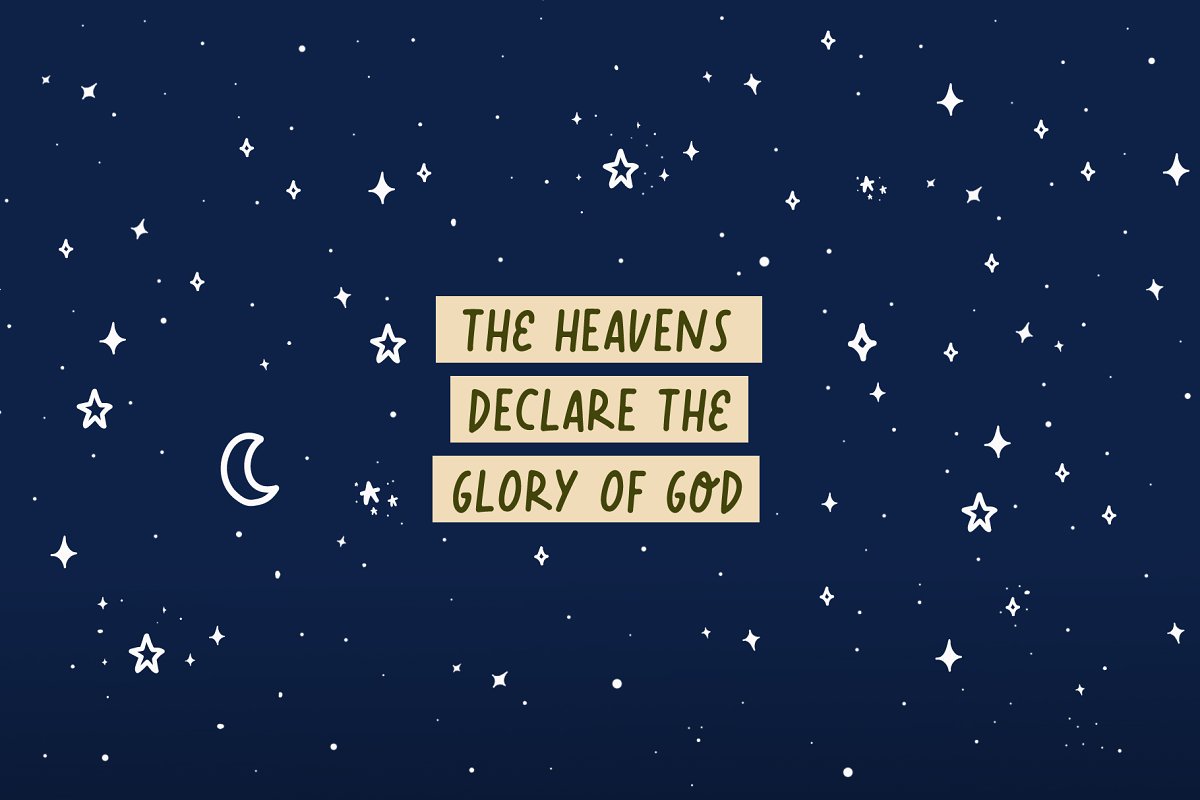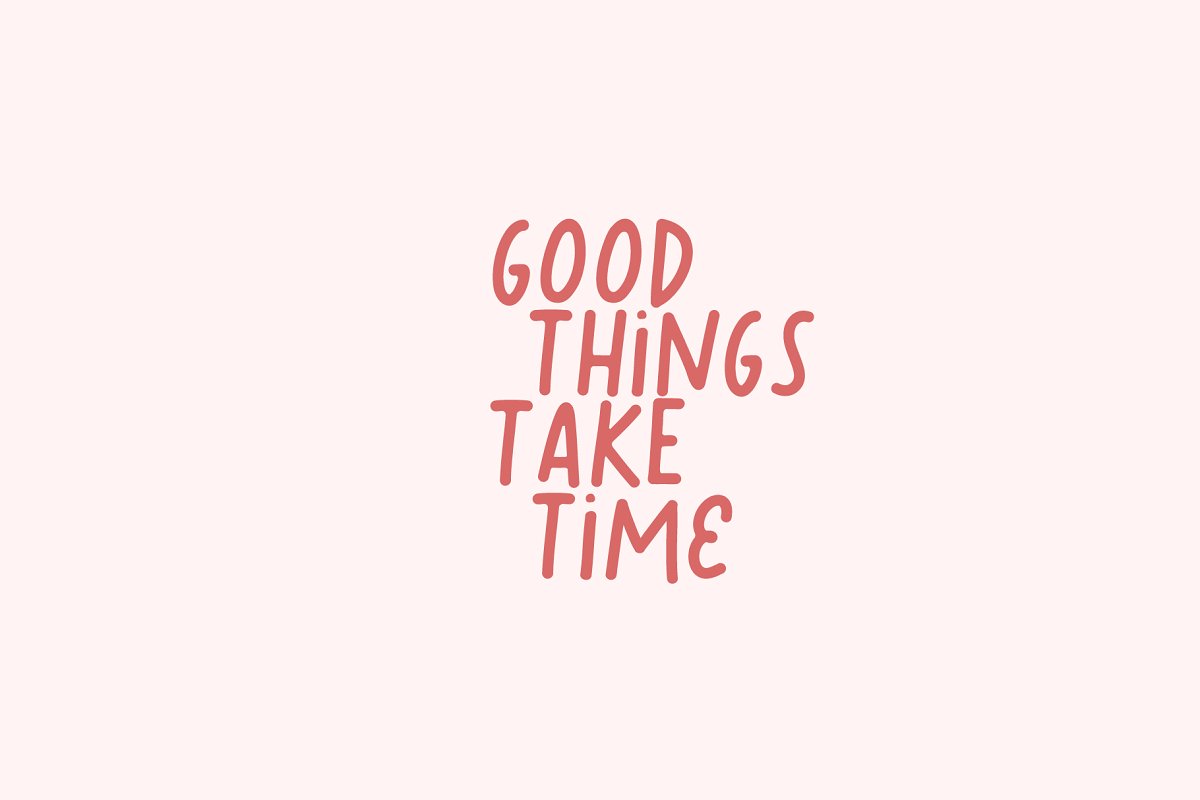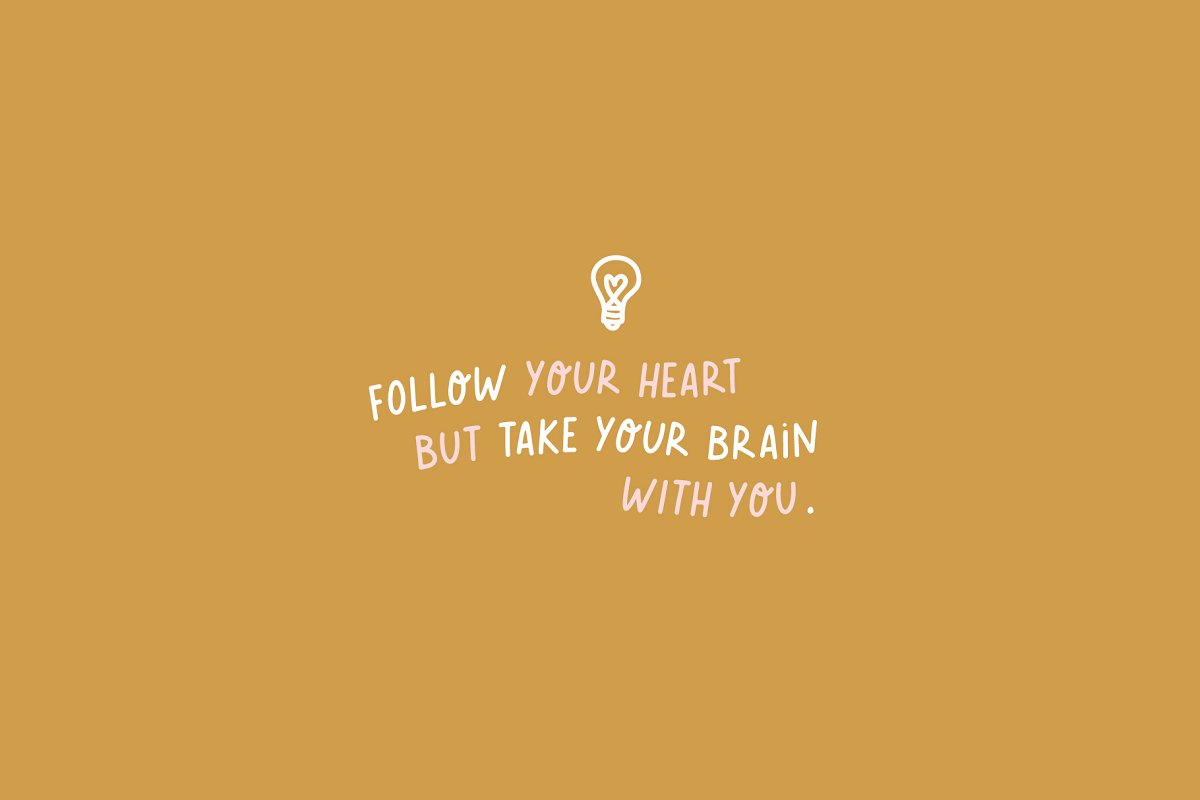
About the Script Font Rational Mood
Rational Mood Font is a handwriting font trio that includes an uppercase, script and tons of extra illustrations to create the cutest designs, Make beautiful quotes or posts for Pinterest or Instagram and decorate them with cute graphics, Includes:Rational Mood Regular: the uppercase fontRational Mood Script: the script fontRational Mood Extras: dingbats font for decorationUppercase, lowercase, numbers and punctuationLanguage support✅ Want more in the same style? CheckA little of Lovehttps://crmrkt